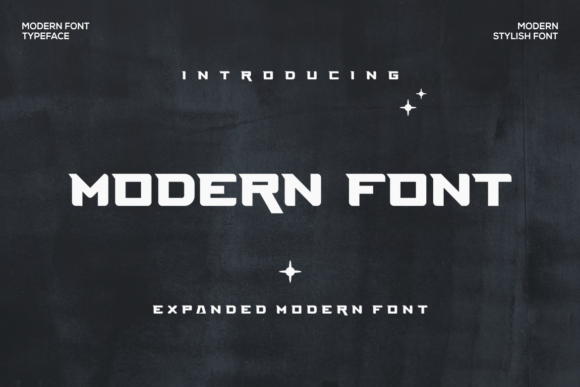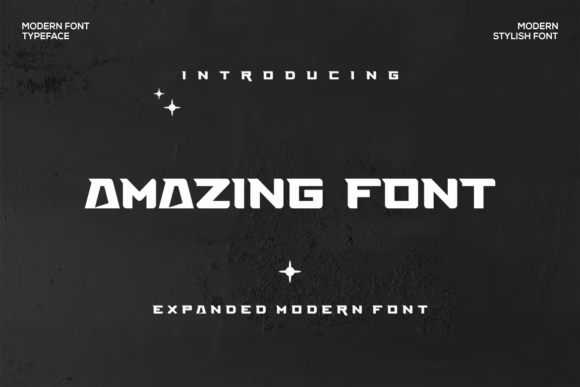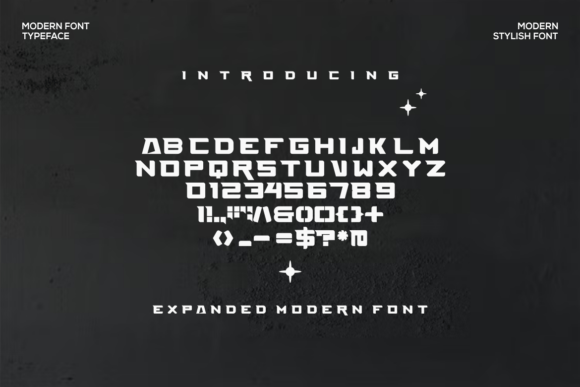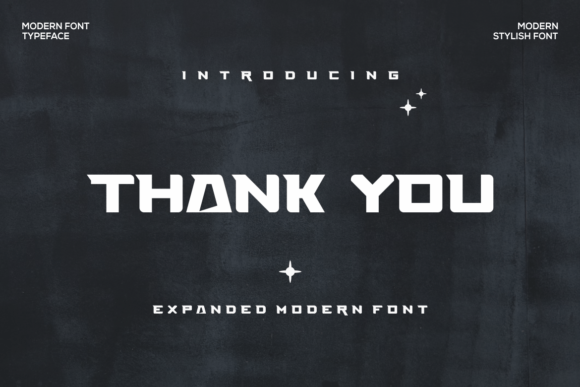
Introducing Anzeir Font: The Modern Display Font for Creative Projects
In the world of design, a font can make all the difference in creating a lasting impression. That’s why we’re excited to introduce Anzeir Font, a modern display font that’s perfect for designers and crafters looking to elevate their branding projects. In this article, we’ll dive into the features and benefits of Anzeir Font, and explore how it can be used to create stunning designs.
What is Anzeir Font?
Anzeir Font is a bold and authentic display font that’s designed to make a statement. Its modern and sleek design makes it perfect for a variety of applications, from logos and t-shirt printing to creative products and more. With its unique and eye-catching style, Anzeir Font is sure to grab attention and leave a lasting impression.
Key Features of Anzeir Font
- Bold and Authentic Design: Anzeir Font boasts a bold and authentic design that’s perfect for making a statement.
- Modern and Sleek: Its modern and sleek design makes it perfect for a variety of applications, from logos to creative products.
- Highly Versatile: Anzeir Font is highly versatile and can be used in a variety of contexts, from digital designs to print materials.
- Easily Readable: Despite its bold design, Anzeir Font is easily readable, making it perfect for use in a variety of applications.
Benefits of Using Anzeir Font
So why choose Anzeir Font for your design projects? Here are just a few benefits of using this amazing font:
- Stand Out from the Crowd: With its unique and eye-catching design, Anzeir Font is sure to help your designs stand out from the crowd.
- Perfect for Branding Projects: Anzeir Font is perfect for branding projects, including logos, t-shirt printing, and more.
- Easy to Use: Anzeir Font is easy to use and can be easily integrated into your design workflow.
- High-Quality Design: Anzeir Font is designed to high-quality standards, ensuring that your designs look professional and polished.
How to Use Anzeir Font
So how can you use Anzeir Font in your design projects? Here are a few ideas to get you started:
- Logos: Use Anzeir Font to create stunning logos that make a lasting impression.
- T-Shirt Printing: Anzeir Font is perfect for t-shirt printing, adding a bold and eye-catching touch to your designs.
- Creative Products: Use Anzeir Font to create stunning creative products, such as posters, flyers, and more.
- Digital Designs: Anzeir Font is also perfect for digital designs, including social media graphics, website headers, and more.